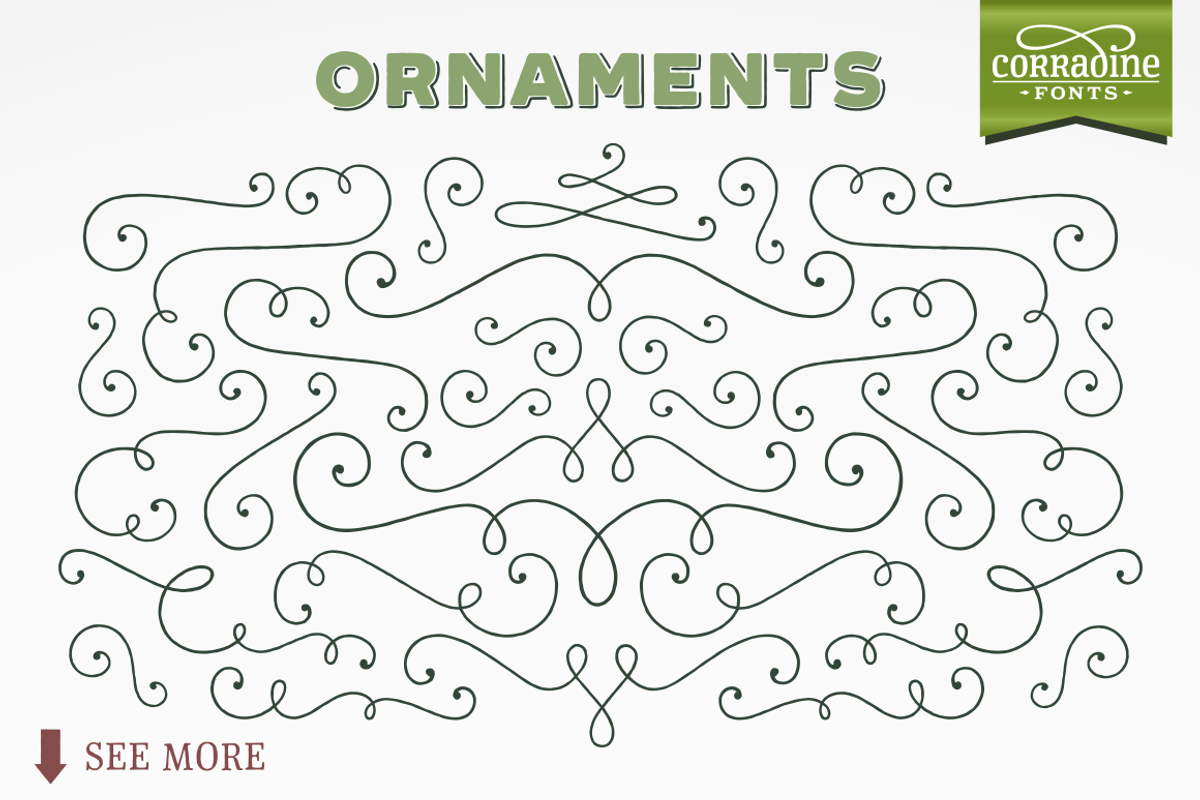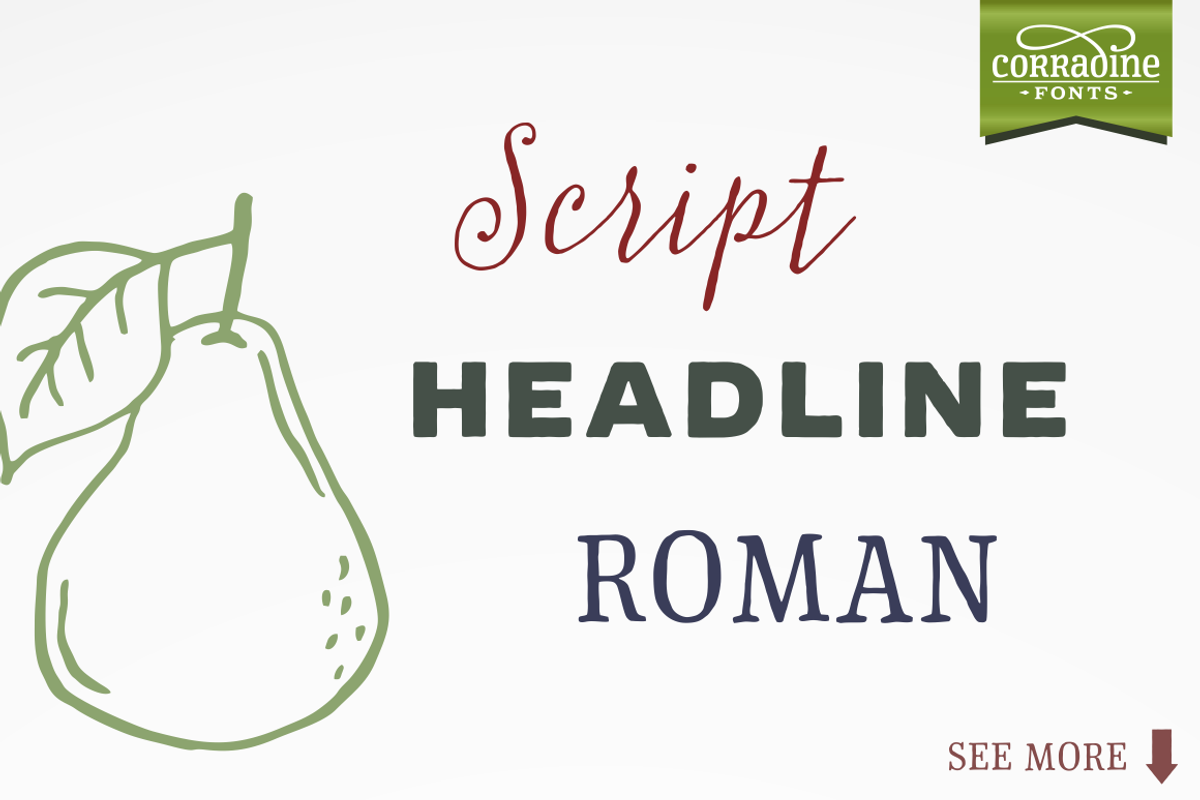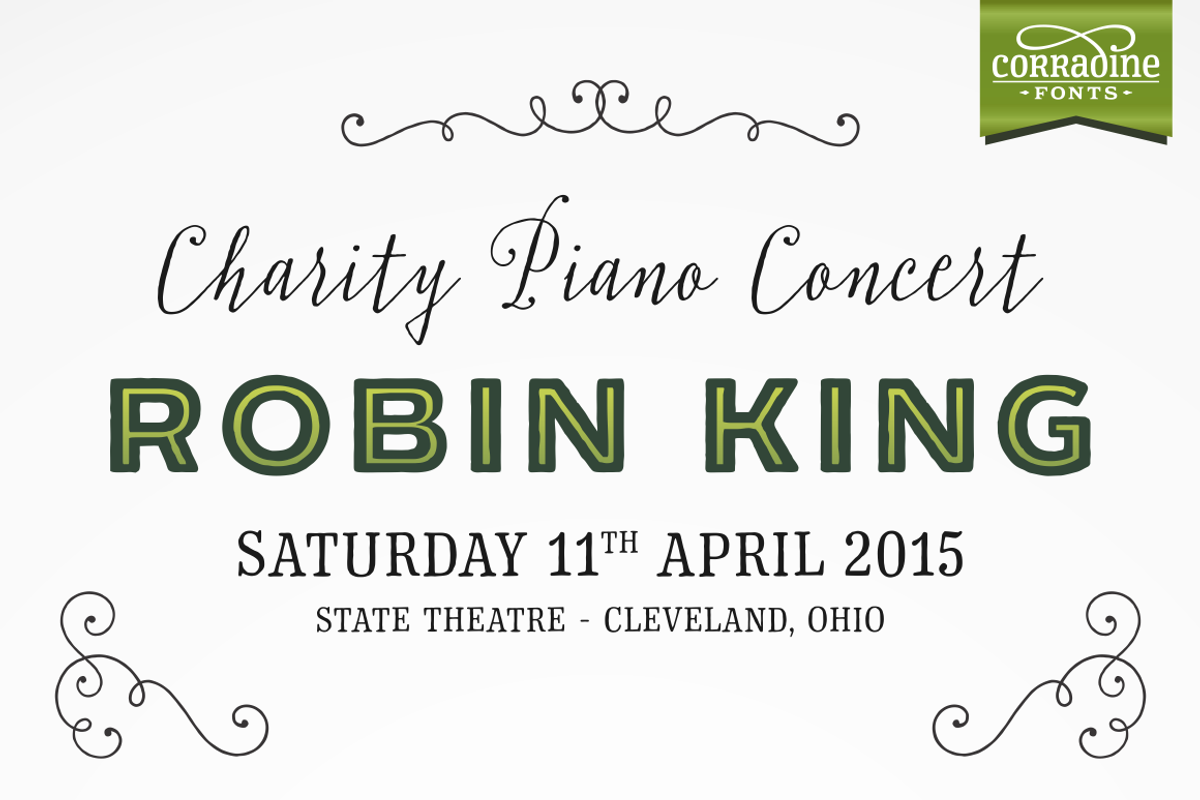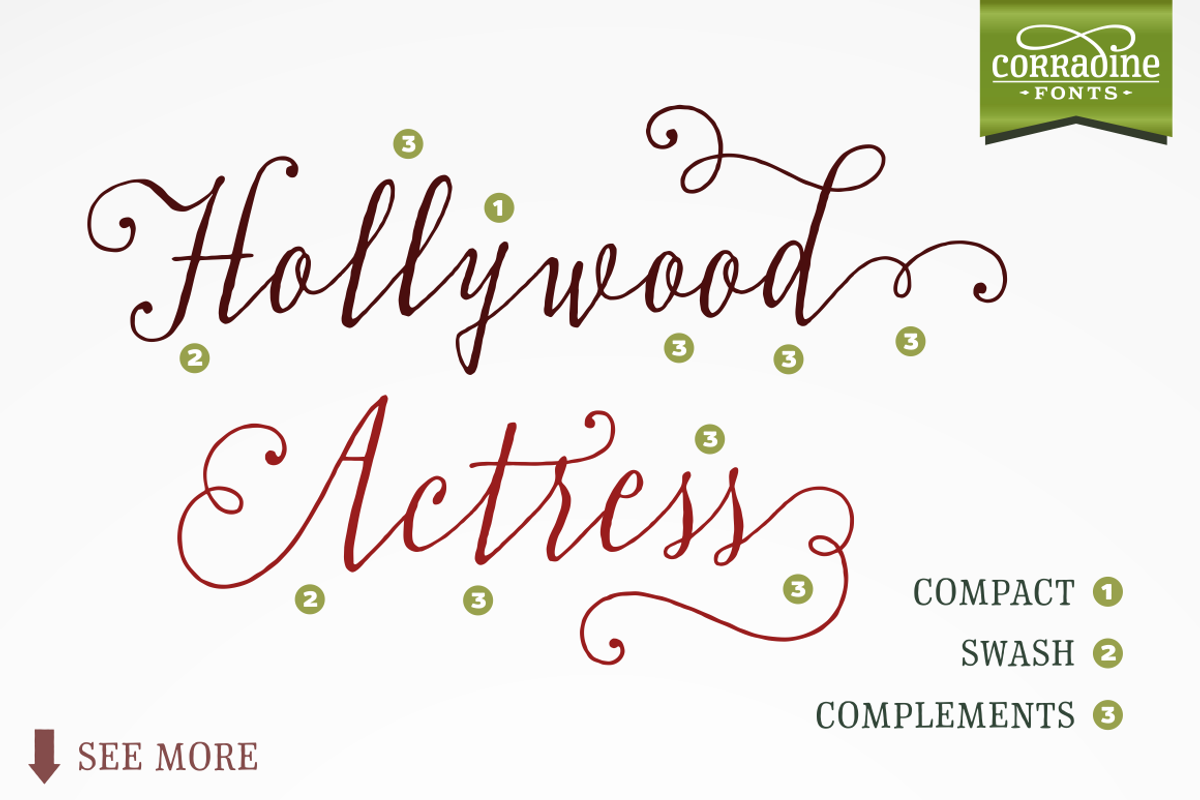
Typnic "Typographic Picnic"
Typnic "Typographic Picnic" by Corradine Fonts is a font selected for branding, posters, packaging, typography.
Why Typnic "Typographic Picnic" is worth a look
Typnic "Typographic Picnic" by Corradine Fonts fits naturally into Branding, posters, packaging, typography.